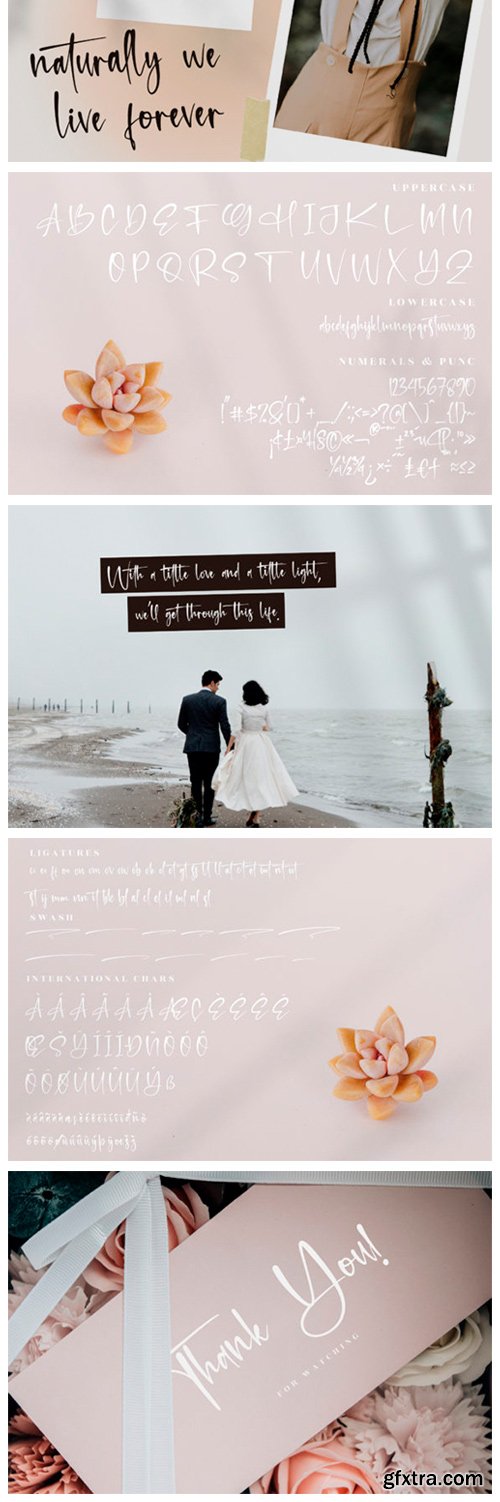
Retrogenta Font
Stylish and beautiful script font. It looks stunning on wedding invitations, thank you cards, quotes, greeting cards, logos, business cards and every other design which needs a handwritten touch. This font is PUA encoded which means you can access all of the glyphs and swashes with ease!